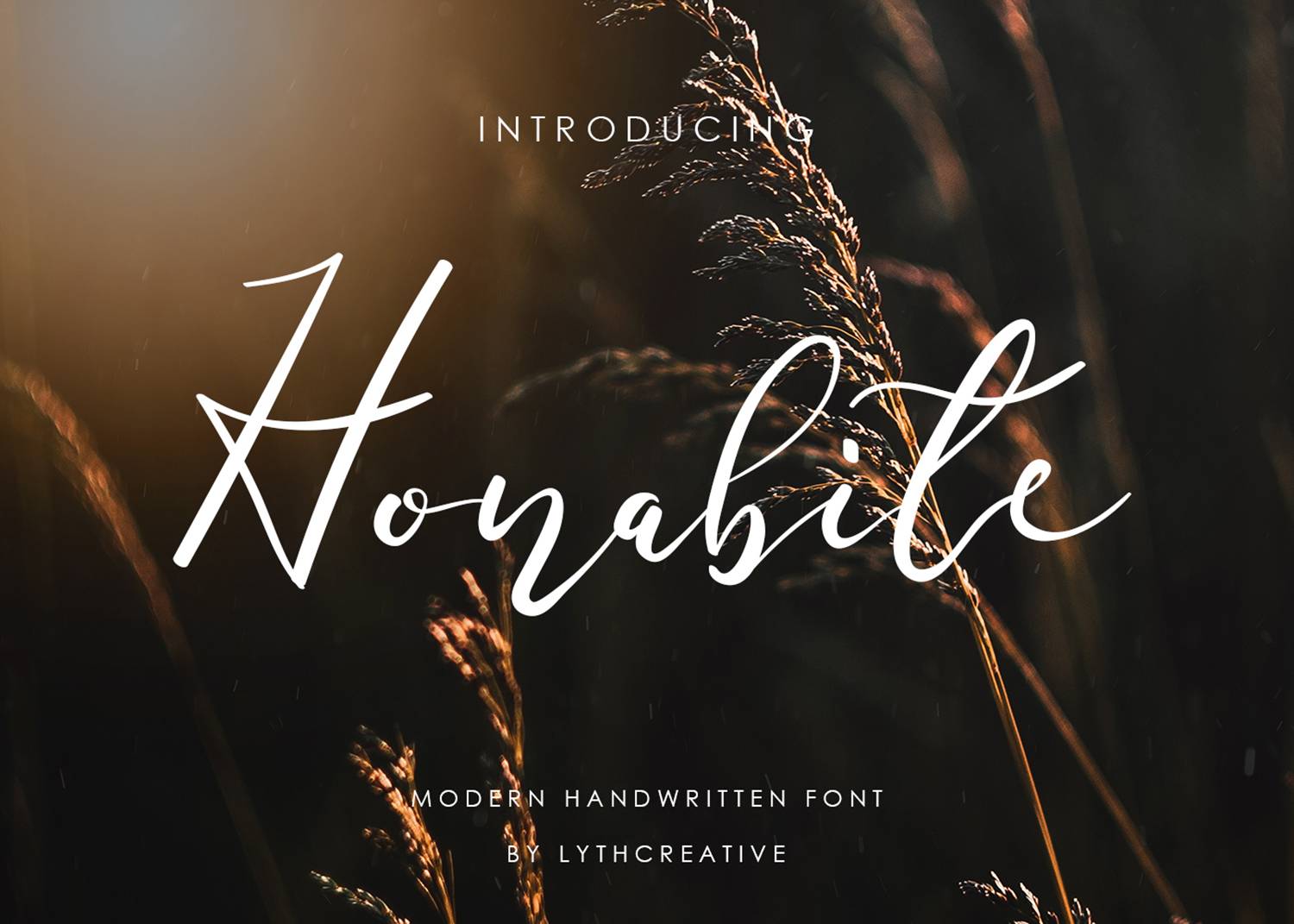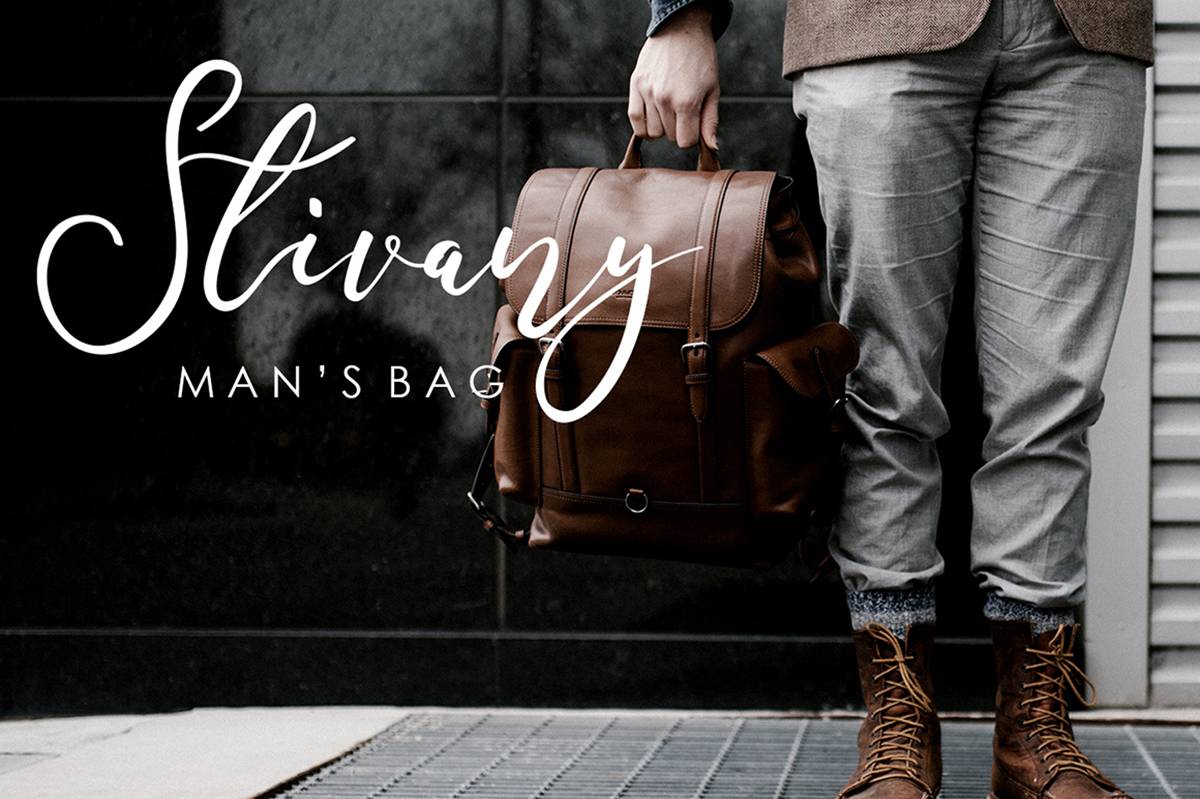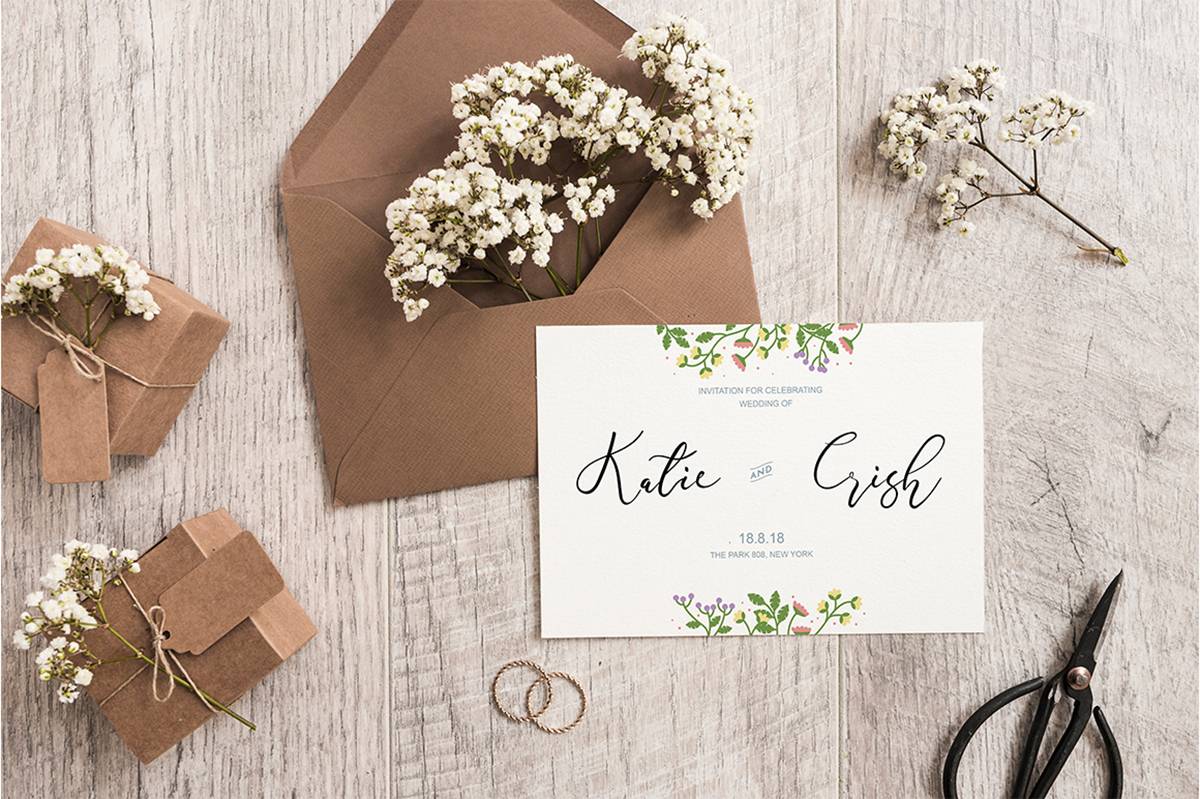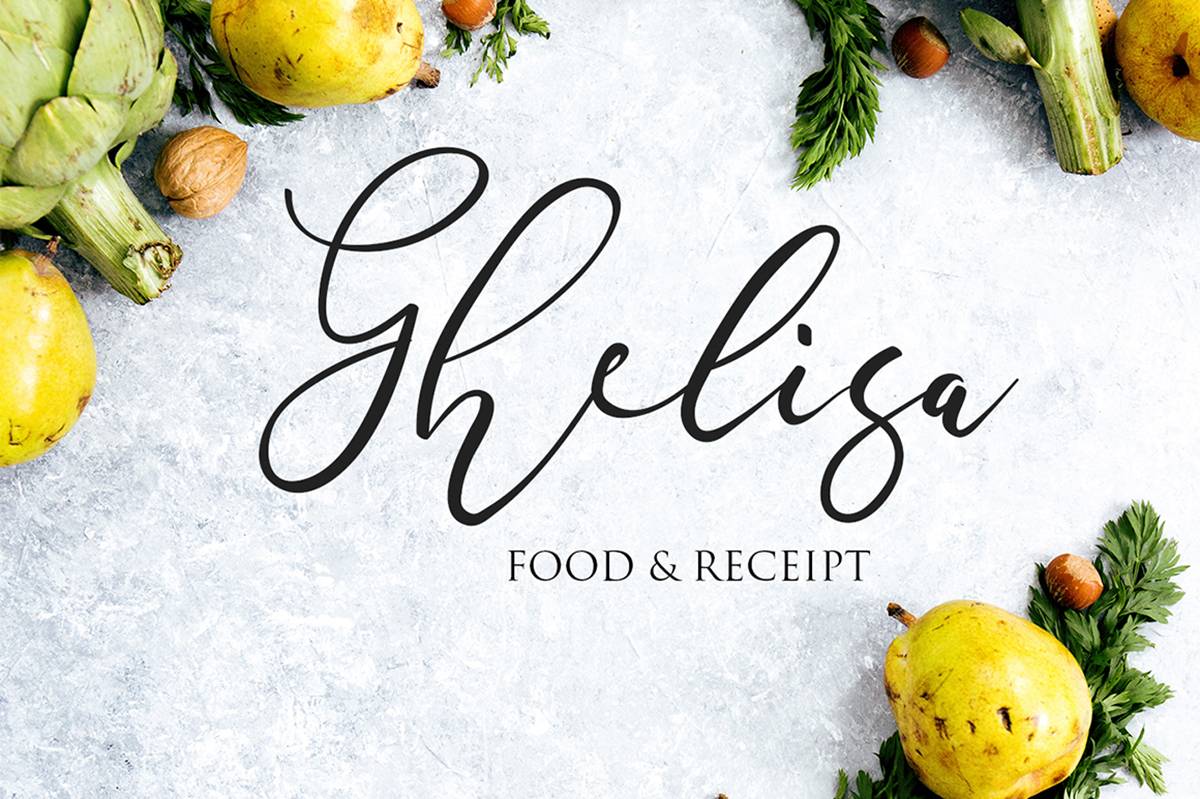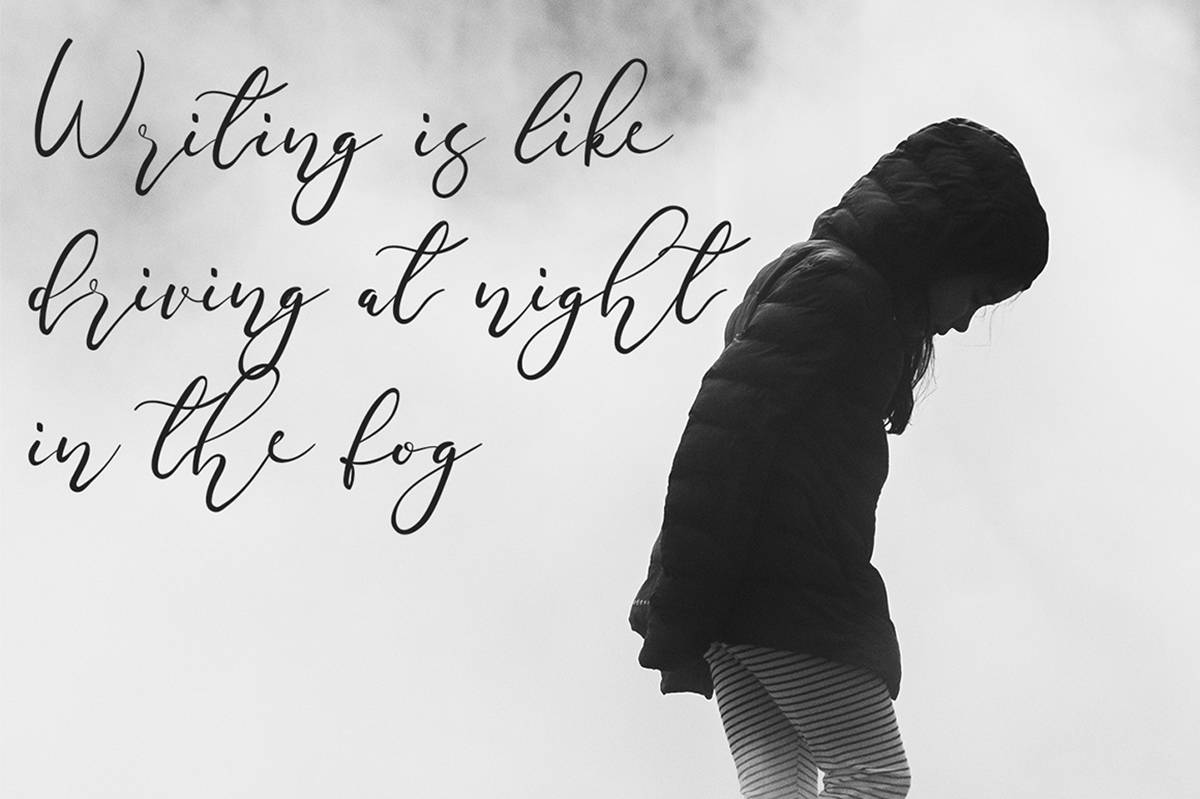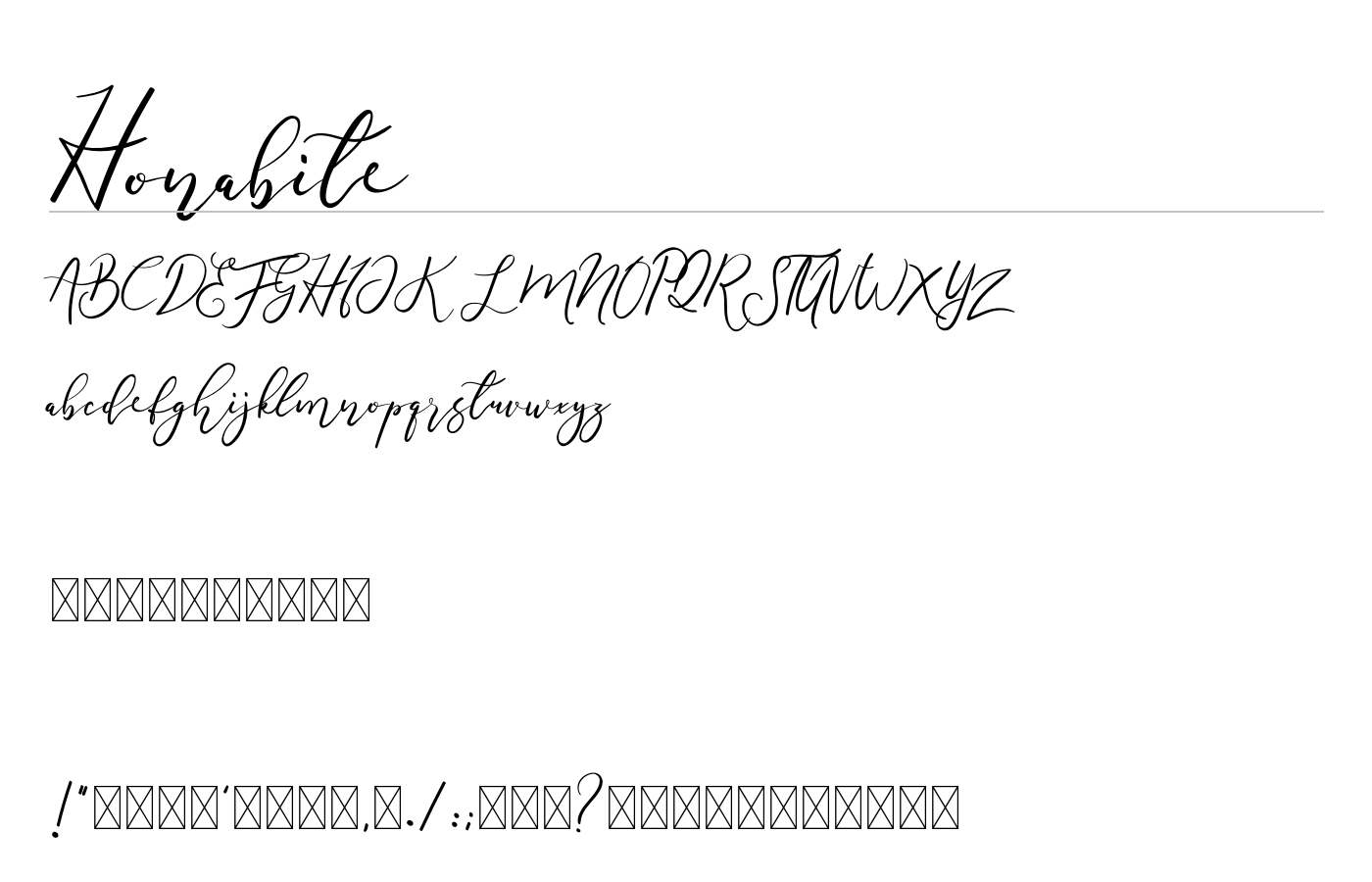
Honabite is a delicate and elegant script font characterized by its flowing, hand-drawn style with fine, slender strokes and graceful letterforms. It exudes a romantic and sophisticated feel, making it ideal for use in wedding invitations, branding for beauty or fashion, and any design that seeks a personal, refined touch. Its airy and stylish nature lends itself well to headlines and decorative text, where a sense of elegance and charm is desired.
Honabite Font
About Honabite Font
| Font family | Honabite Font |
| Designer | Ana Natalia |